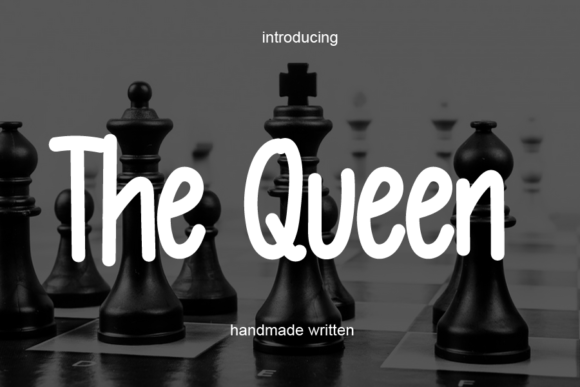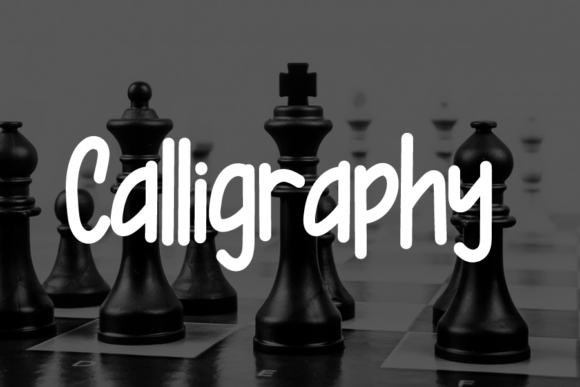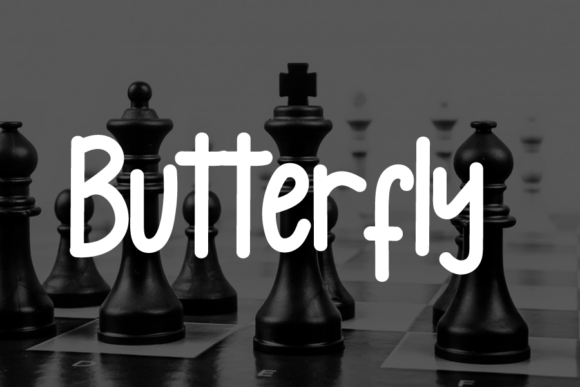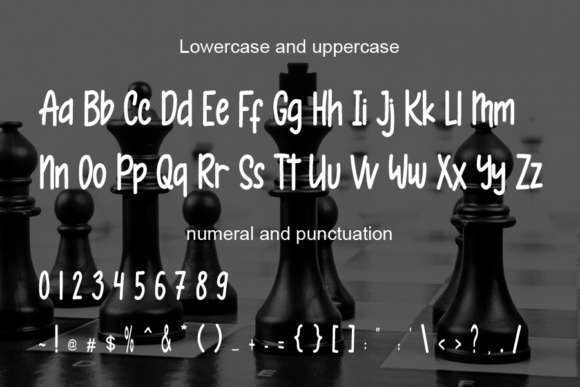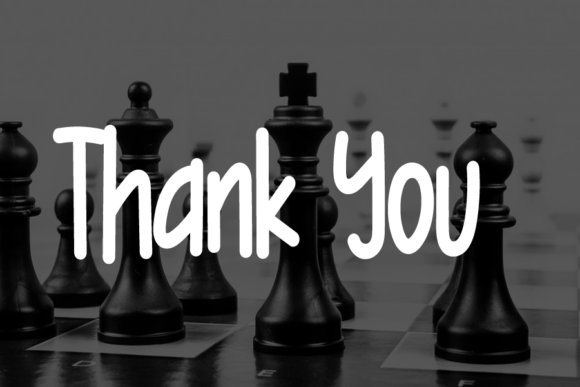
Script Fonts The Queen Font 0 140 FacebookTwitterPinterestWhatsApp 1 of 5 The Queen Font Poster 2... The Queen Font Poster 3... The Queen Font Poster 4... The Queen Font Poster 5... About The Queen Font The Queen is a flowing handwritten font, described by an elegant touch, perfect for your favorite projects. Fall in love with its incredibly distinct and timeless style and use it to create spectacular designs! DOWNLOAD NOW